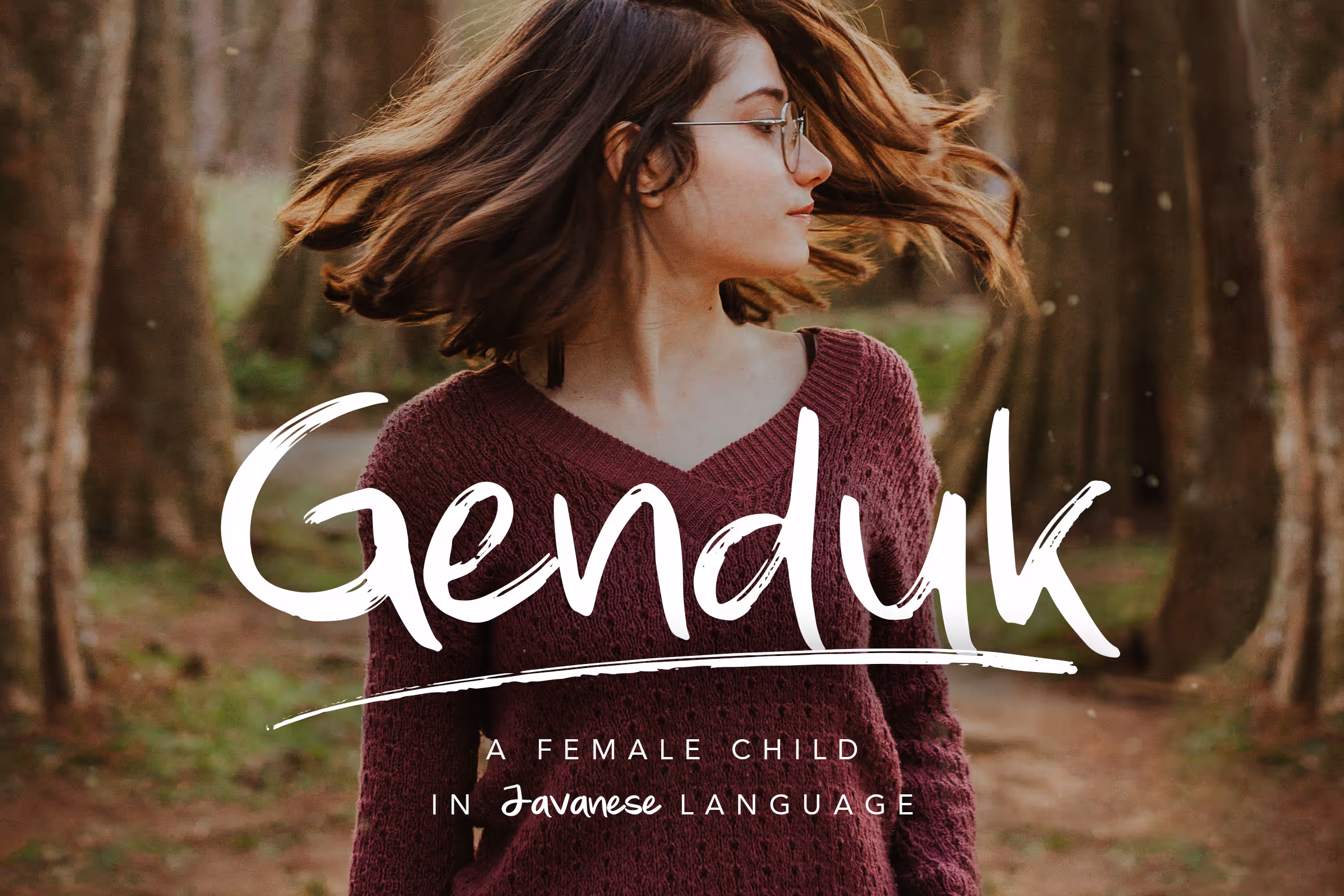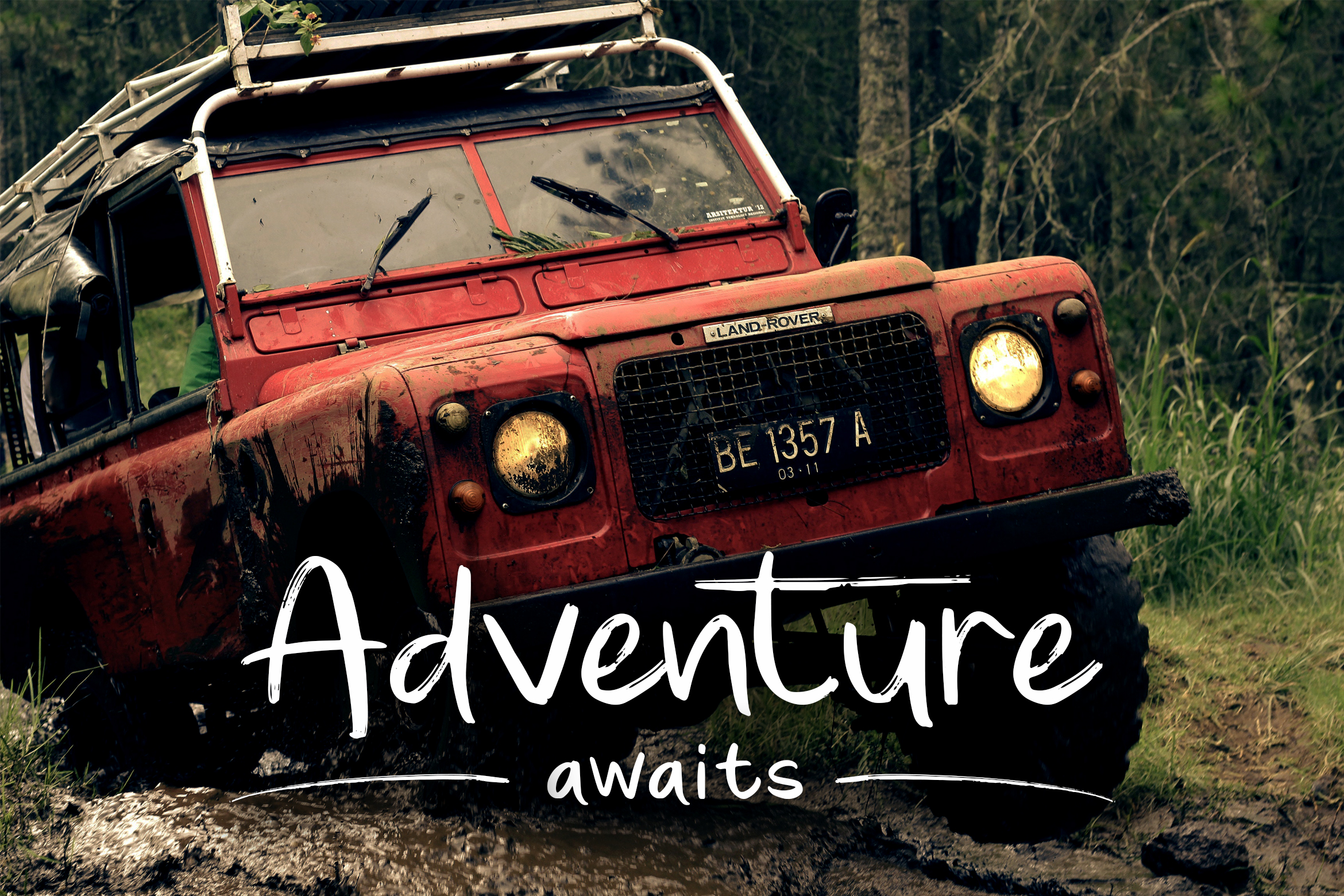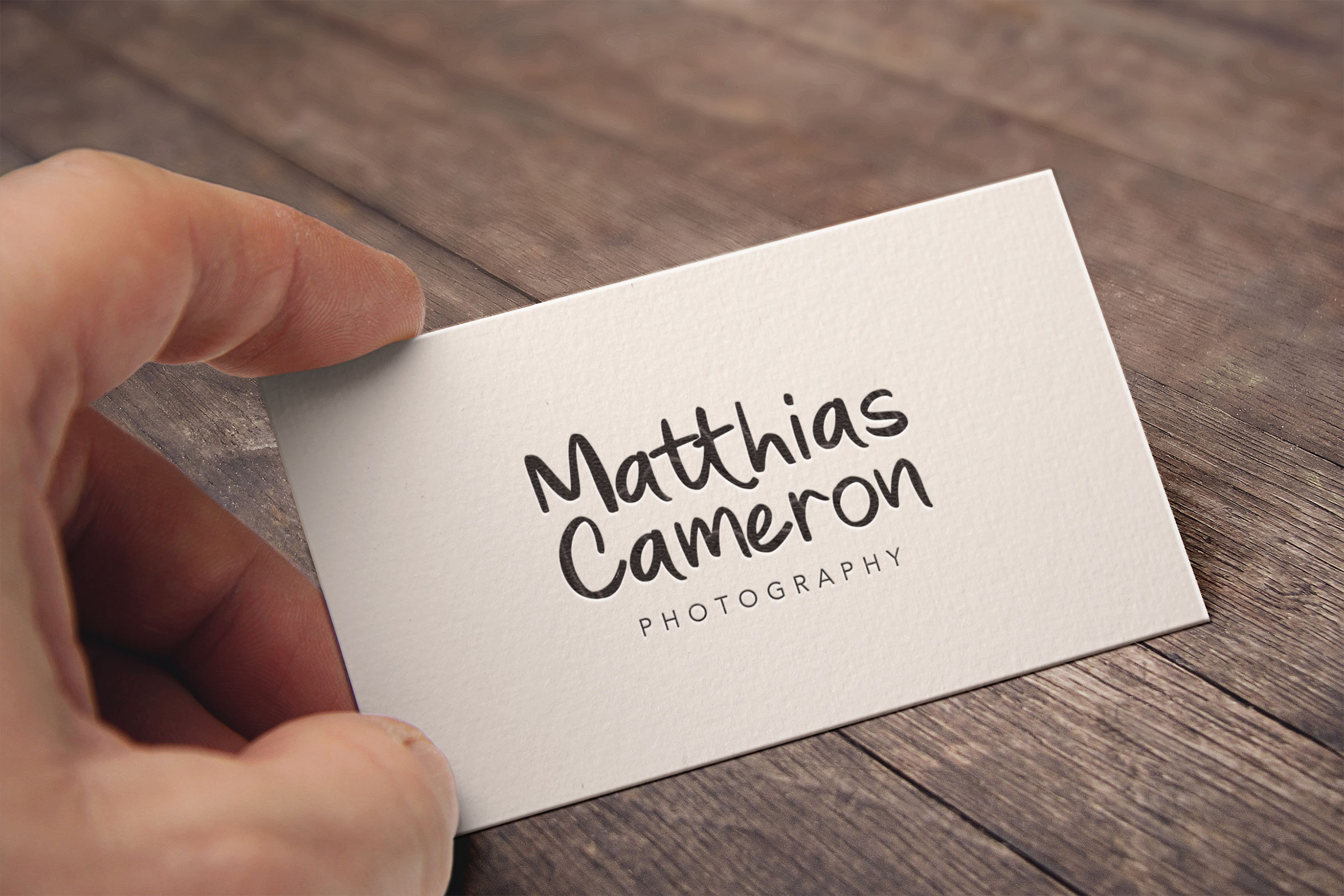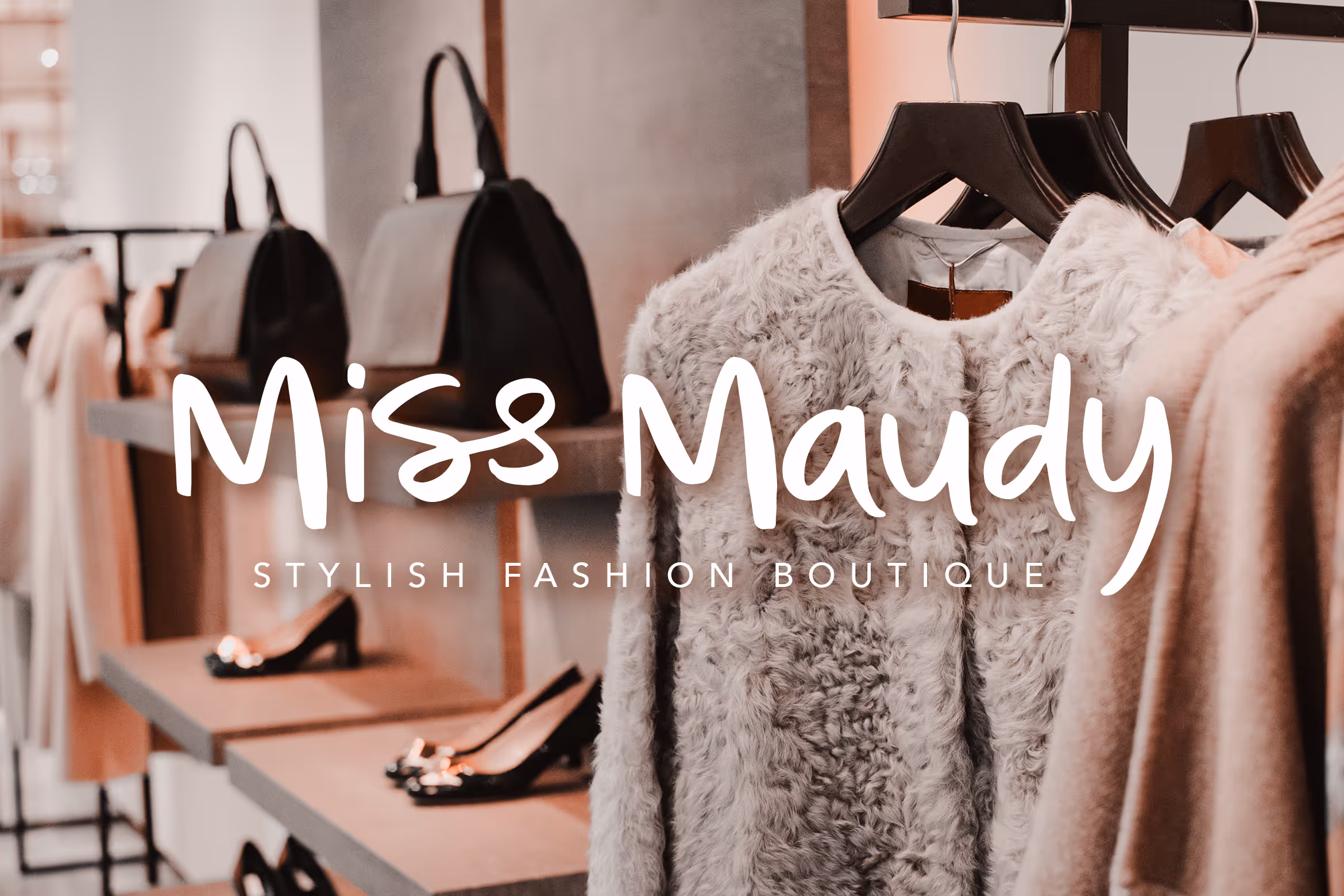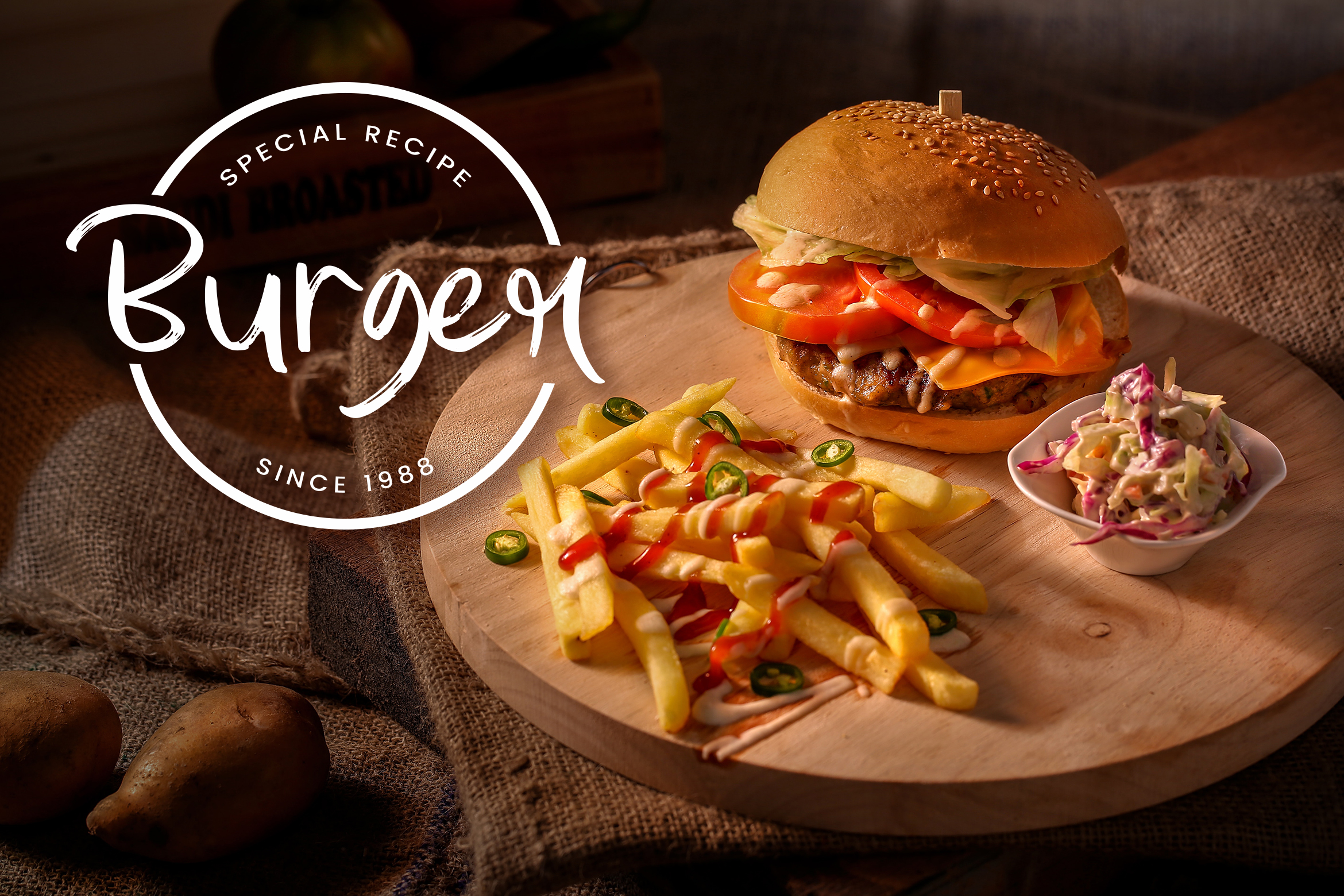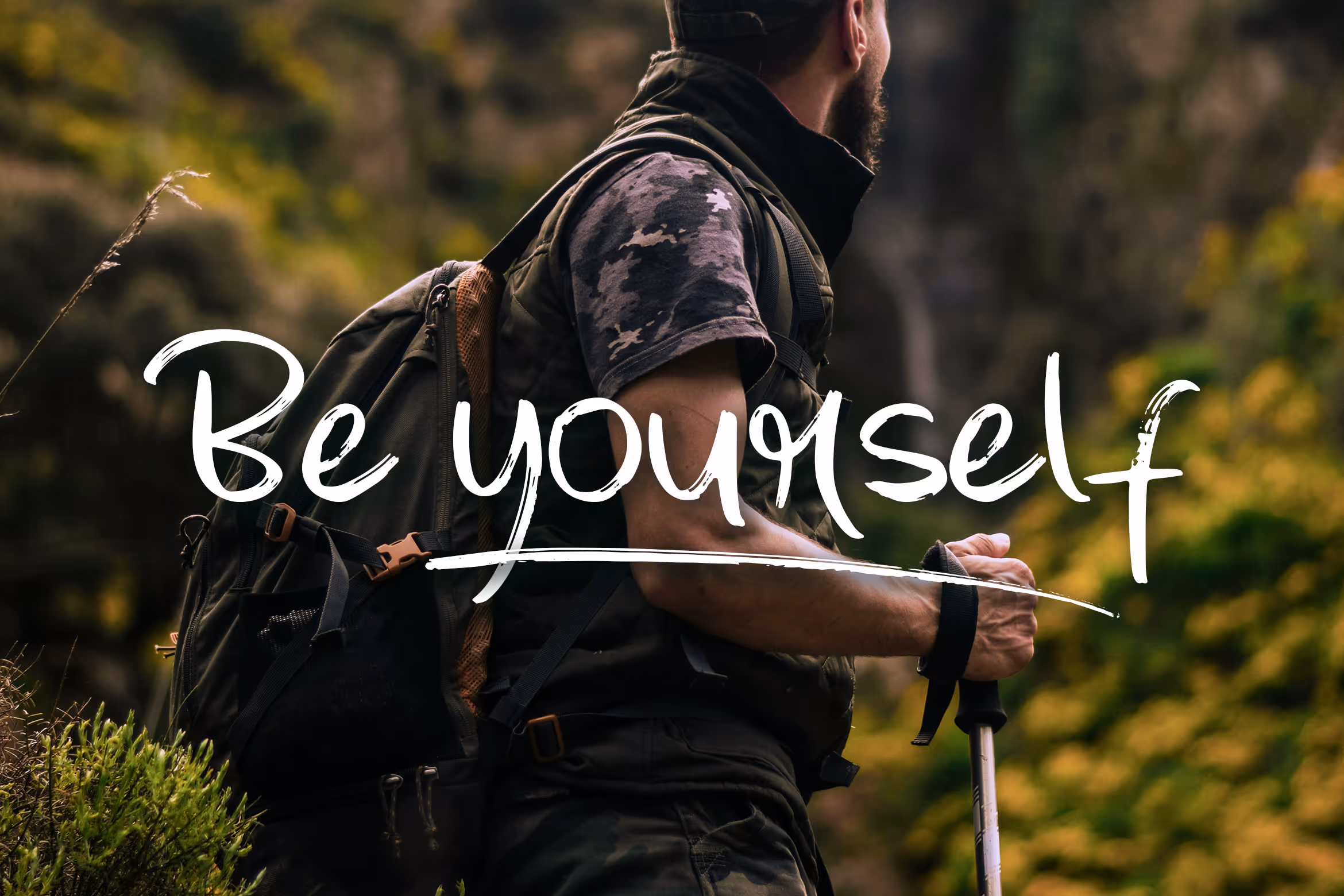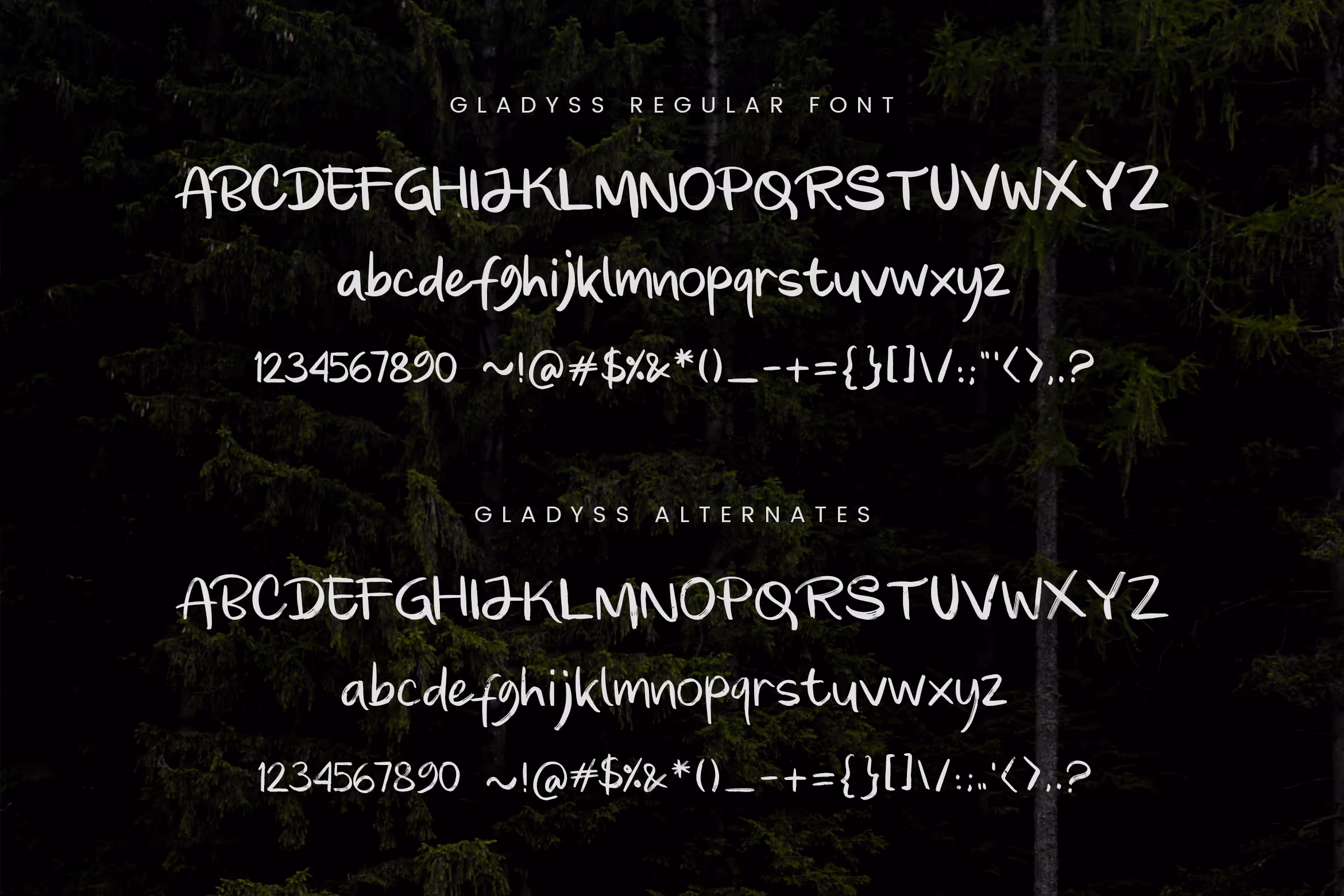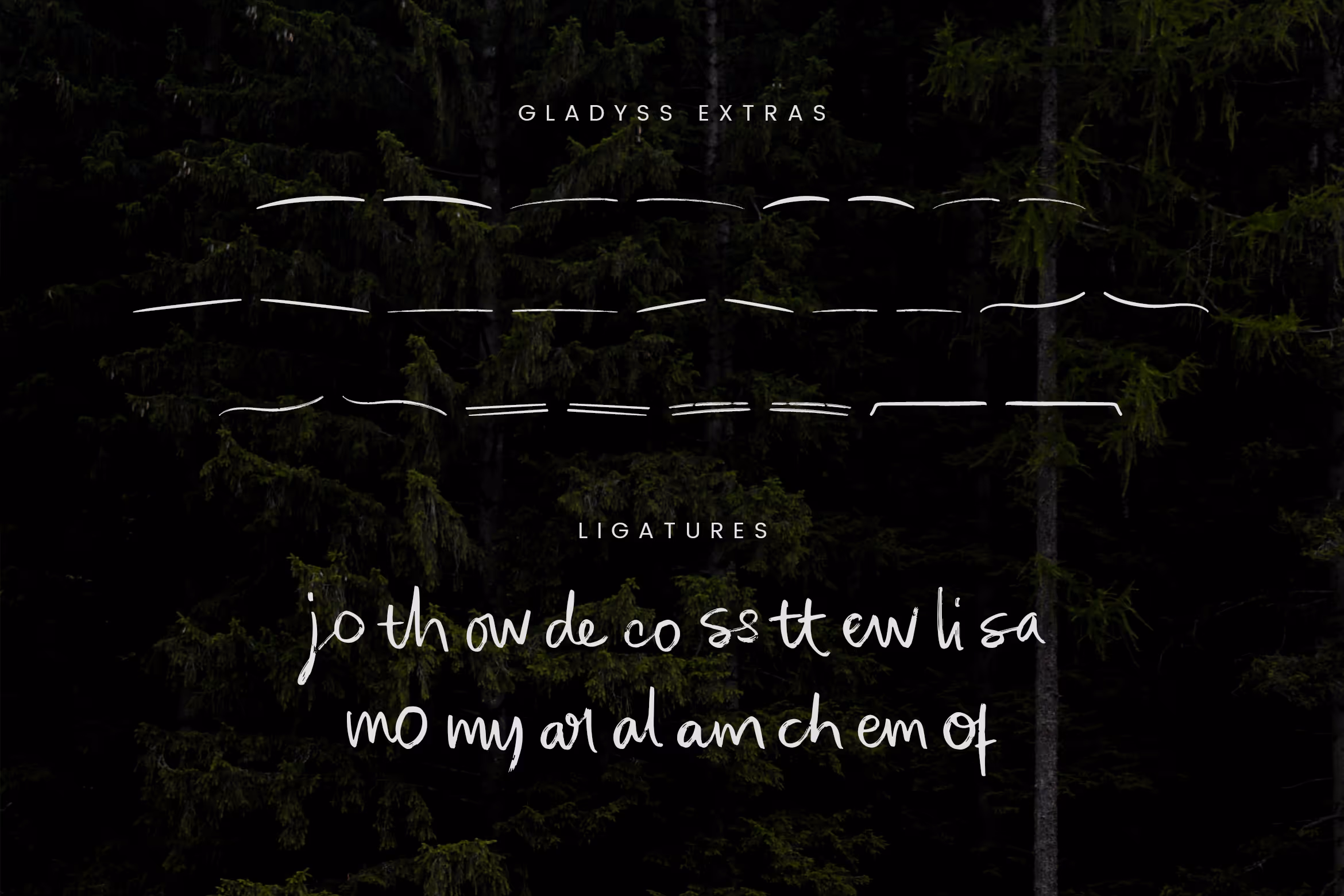
To anyone who needs a full package of brushed font, Gladyss Beauty Brushed Handwritten Font is a perfect choice. This package of the font not only consists of regular font but also alternate font, extras and ligatures to modify your script creation.
This font is suitable for branding projects, product packaging, business cards, adventurous theme or a stylish text overlay to any background image because this font has a strong and fun feeling in every stroke.
The regular and alternate font of Gladyss consisted of uppercase and lowercase letters, numbering and punctuation, while the extra is a set of 26 hand-drawn swashes as a perfect finishing touch to underline the Gladyss text. Install the extras as a separate font, select it from the font menu and type A-Z character to create the swashes you want.